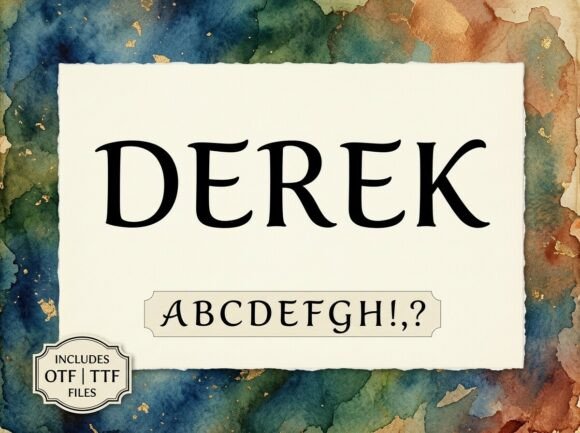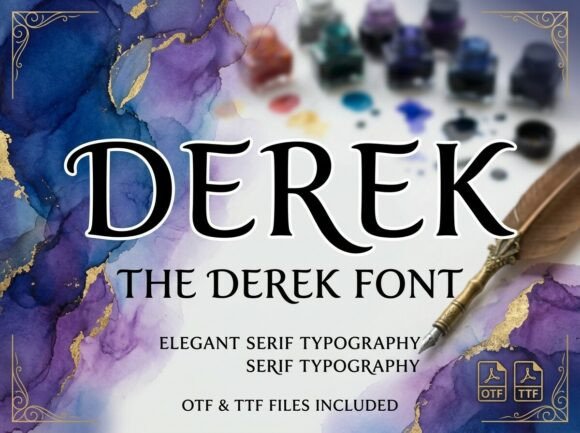
I still remember the frustration of working on a high-stakes client project, only to hit a roadblock: finding the right font. The design brief called for a “modern-and-stately” feel, but every font I tried seemed to fall flat. That was until I stumbled upon Derek Font – a game-changing display typeface that instantly elevated my design. In this article, I’ll share my experience with Derek, its features, and how to make the most of this versatile font.
First Impressions: What I Love About Derek Font
Here’s what makes Derek Font stand out:
- ✨ **Clean and high-contrast letterforms**: Derek’s sleek design makes it perfect for headlines, titles, and statements.
- ✅ **Rhythmic, sharp terminals**: The subtle flair at the terminals adds a touch of sophistication and elegance.
- 💼 **Professional confidence**: Derek exudes a sense of authority and poise, making it ideal for corporate branding and editorial layouts.
- 📈 **Balanced structural weight**: The font’s balanced weight ensures it remains legible and impactful across various mediums.
The Not-So-Perfect: Small Quirks and Limitations
No font is perfect, and Derek has a few quirks:
- 🤔 **Limited use for body text**: Due to its high-contrast design, Derek might not be the best choice for lengthy paragraphs.
- ⚠️ **Kerning issues**: As with any font, some users may experience kerning issues, particularly with certain letter combinations.
The Story Behind Derek Font
Although the origins of Derek Font are shrouded in mystery, it’s said that the font’s creator was inspired by the grandeur of modern architecture and the sleek lines of luxury brands. The goal was to craft a font that embodies professionalism, confidence, and a touch of sophistication.
| Font Name | Derek Font |
| Author | Creativeguru |
| What makes Derek Font suitable for corporate branding? | Derek’s clean design, balanced weight, and professional confidence make it an excellent choice for corporate branding. |
| Can I use Derek Font for body text? | While possible, Derek’s high-contrast design might not be ideal for lengthy paragraphs. Consider using a more traditional serif or sans-serif font for body text. |
| Is Derek Font suitable for web design? | Yes! Derek’s clean design and balanced weight ensure it remains legible and impactful on digital interfaces. |
| Can I use Derek Font for social media headers? | Absolutely! Derek’s bold and refined personality makes it perfect for high-impact social media headers. |